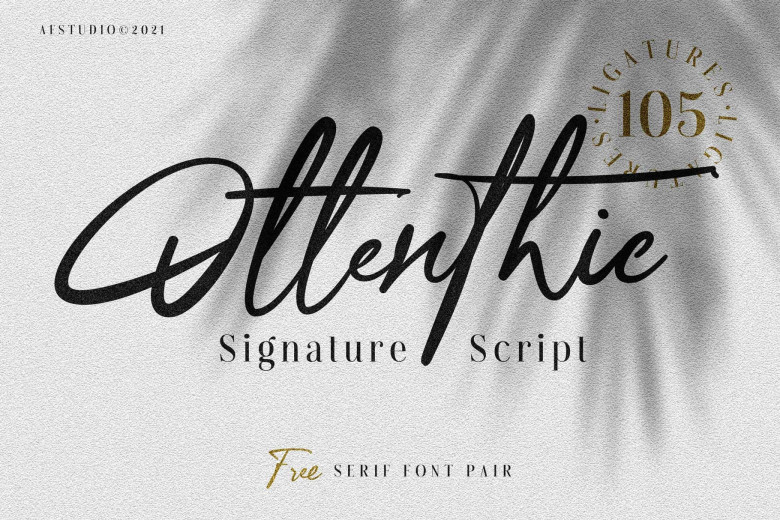
Ottenthic Font
Ottenthic is an eye-catching dual font (script and serif). Featuring sophisticated, modern, sleek and stylish appearance, Ottenthic can be used for creating logos, branding invitations, stationery designs, wedding designs and social media posts – and much more!
Ottenthic Handwritten Font